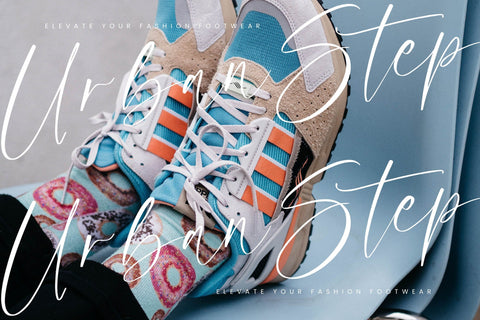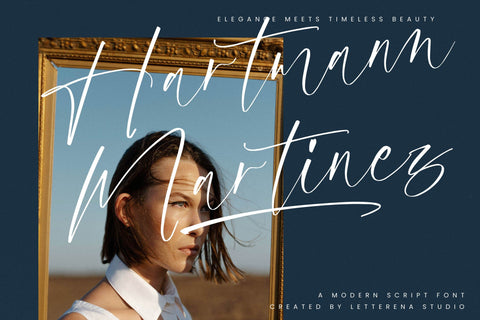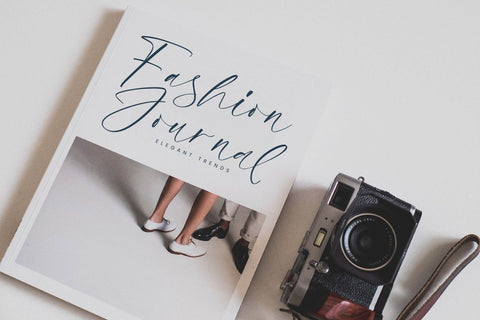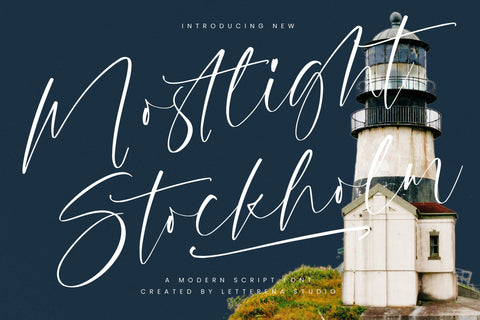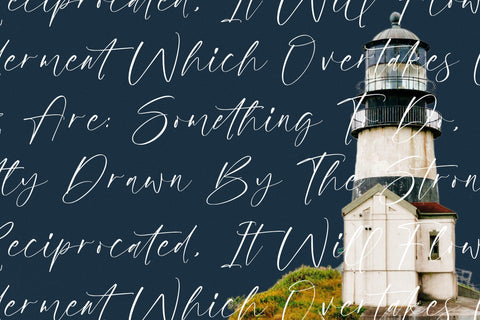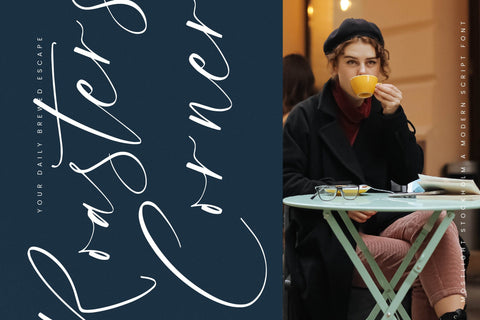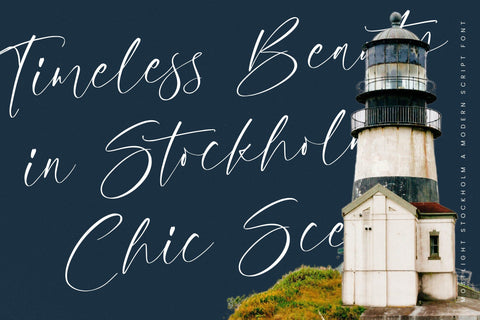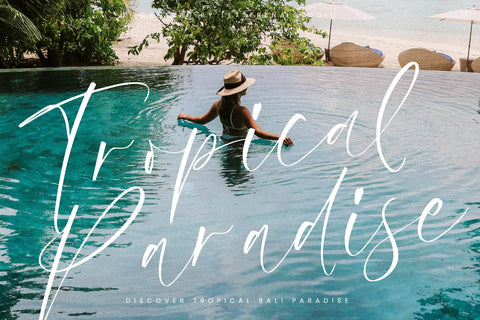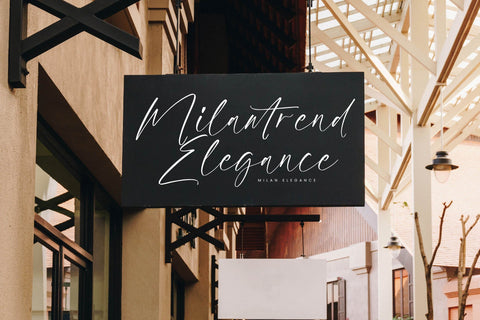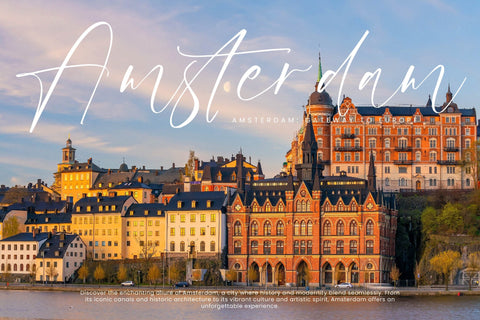
Mostlight Stockholm - Modern Script Font
Mostlight Stockholm - Modern Script Font , from Letterena, is a Luxury Script font, suitable for any projects such as: logos, branding projects, homeware designs, product packaging, mugs, quotes, posters, shopping bags, t-shirts, book covers, name card, invitation cards, greeting cards, label, photography, watermark, special events, and all your other luxury and beautiful projects that need a Luxury Script taste.